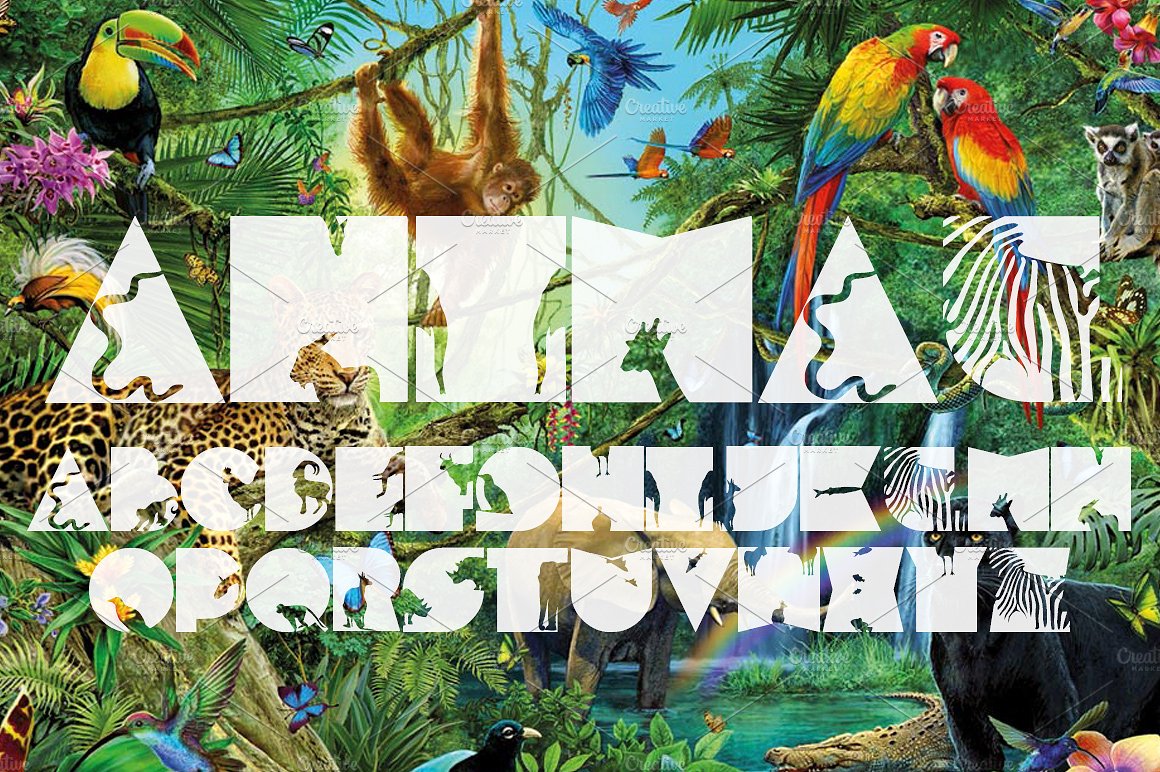
FTF Minthee Hewante Pro
Inspired by the silhouette of animals in the forest, the font is very suitable for the cover of a book or branding your logo, etc.